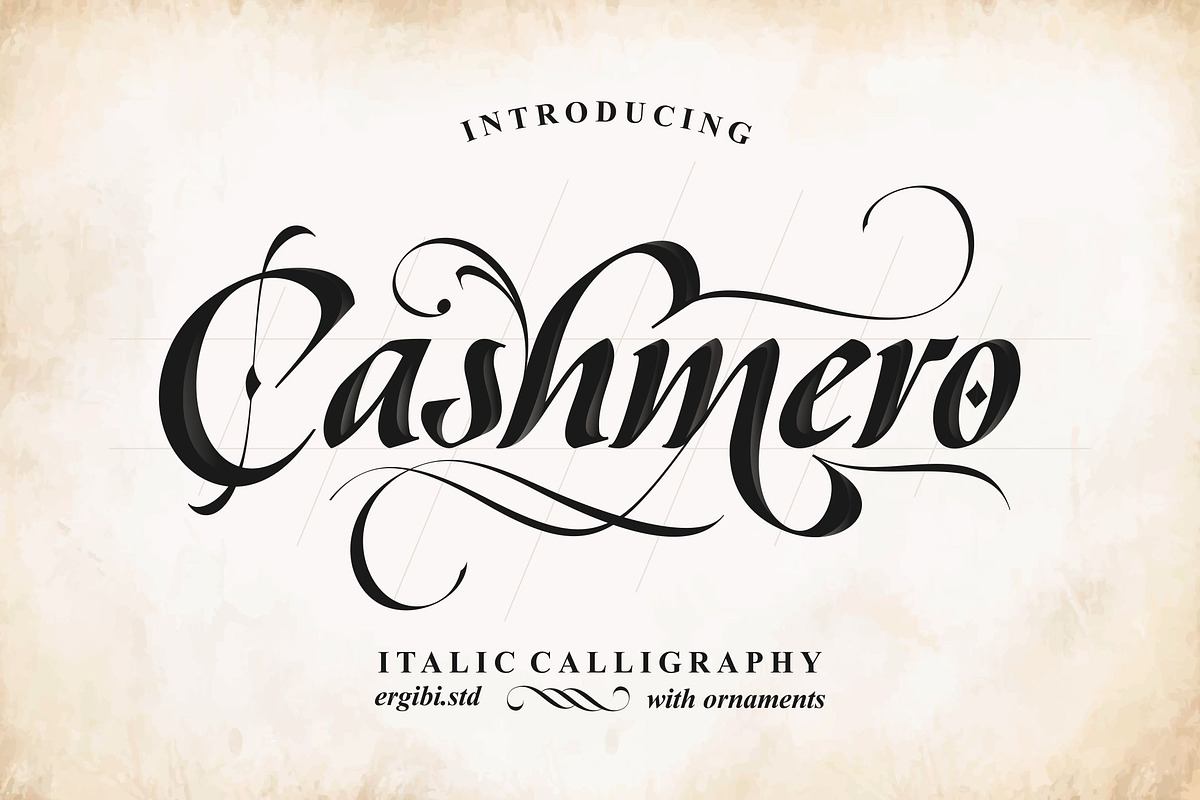
You must purchase this font for commercial use. However, you can download Cashmero Font - Italic Calligraphy Free Download for testing purposes. Cashmero is a beautiful italic calligraphy font, designed to bring an elegant and fluid handwritten touch to your projects. Perfect for luxury branding, wedding invitations, greeting cards, logos, and other creative endeavors, this font exudes sophistication and timeless appeal.
With its graceful curves, stylish flourishes, and flowing lines, Cashmero creates a refined and artistic look. Whether you're working on a chic invitation suite, a premium logo, or decorative quotes, Cashmero Font - Italic Calligraphy Free Download offers an exquisite calligraphy style that adds elegance and personality to your typography.